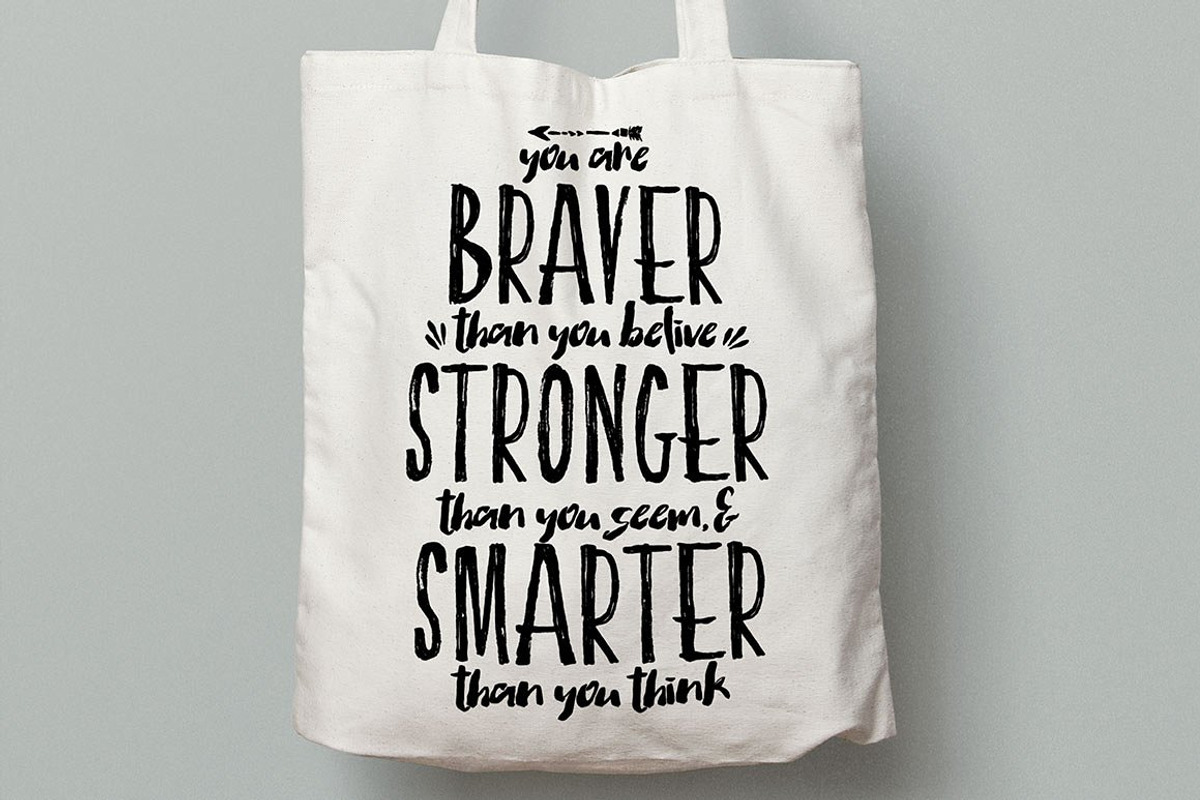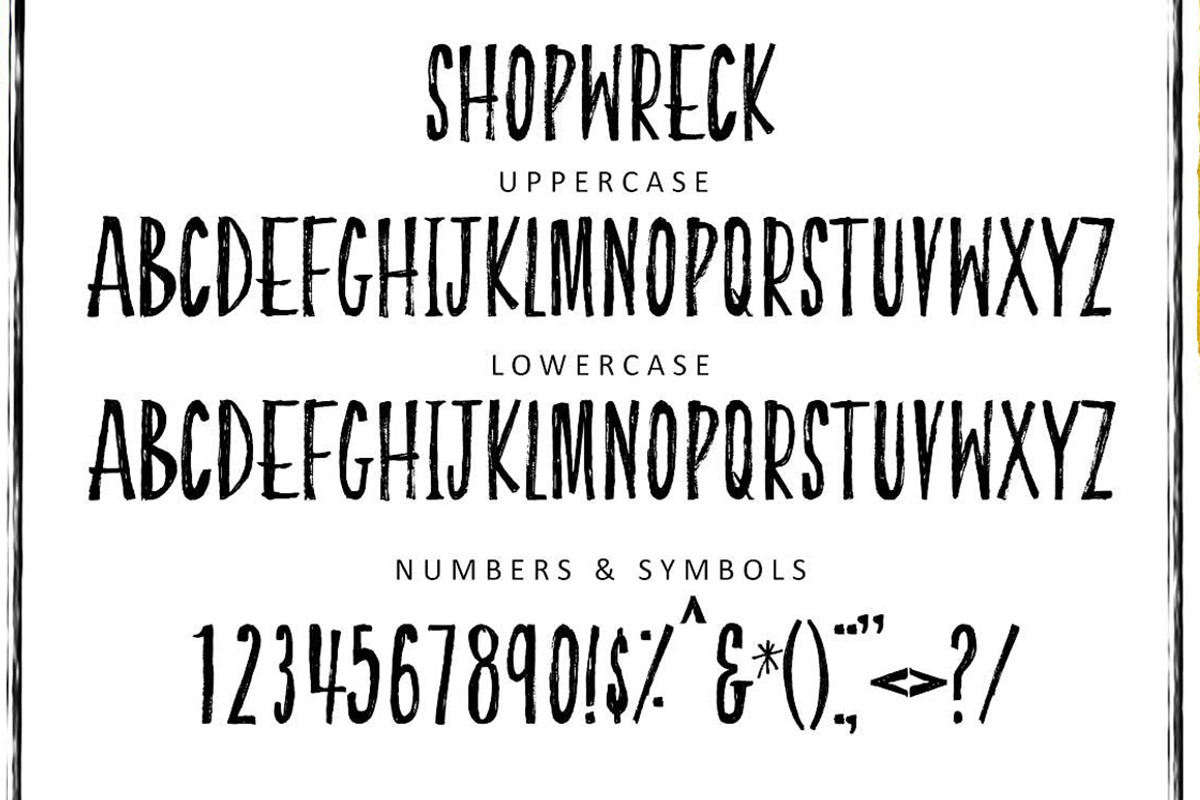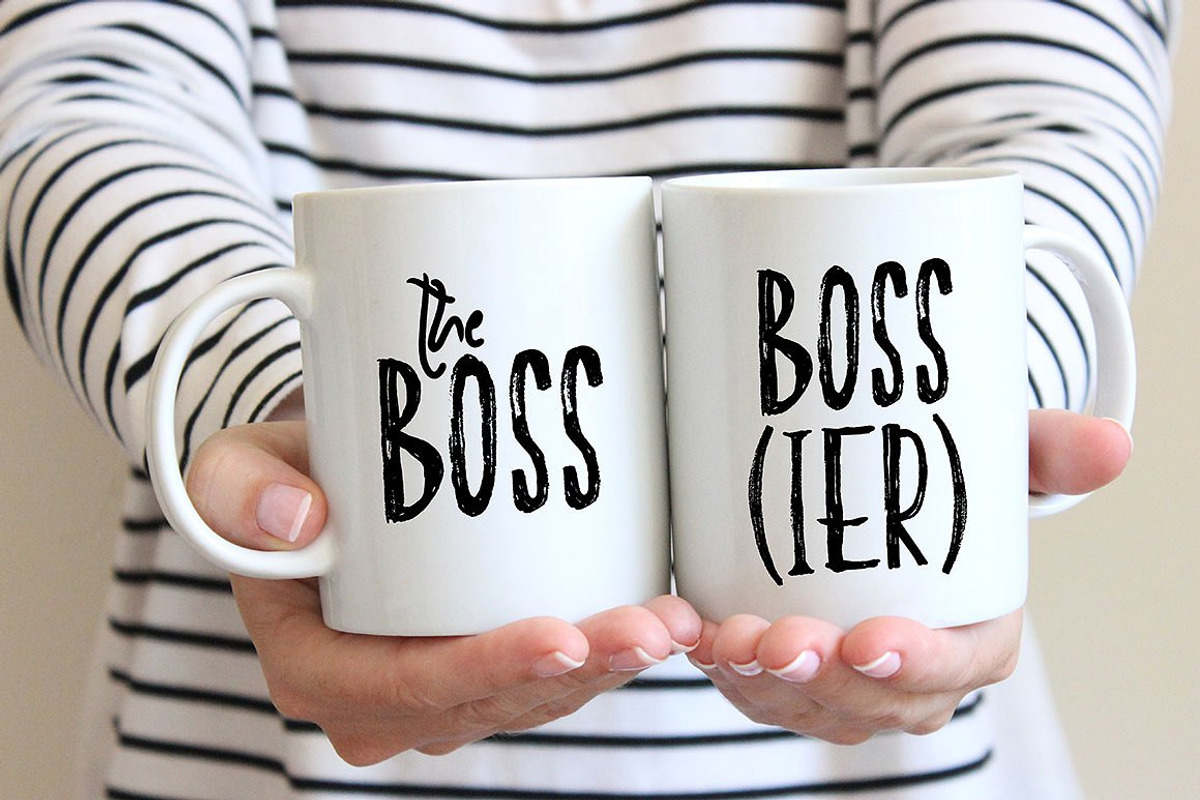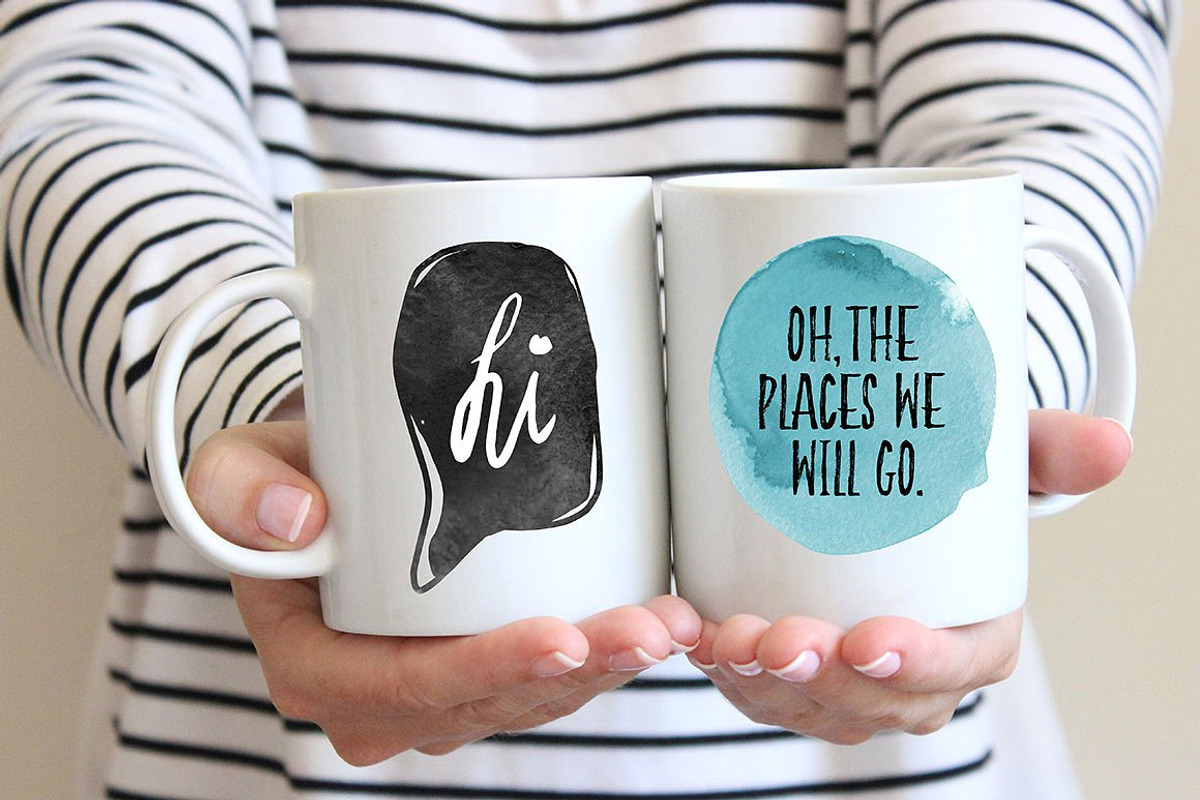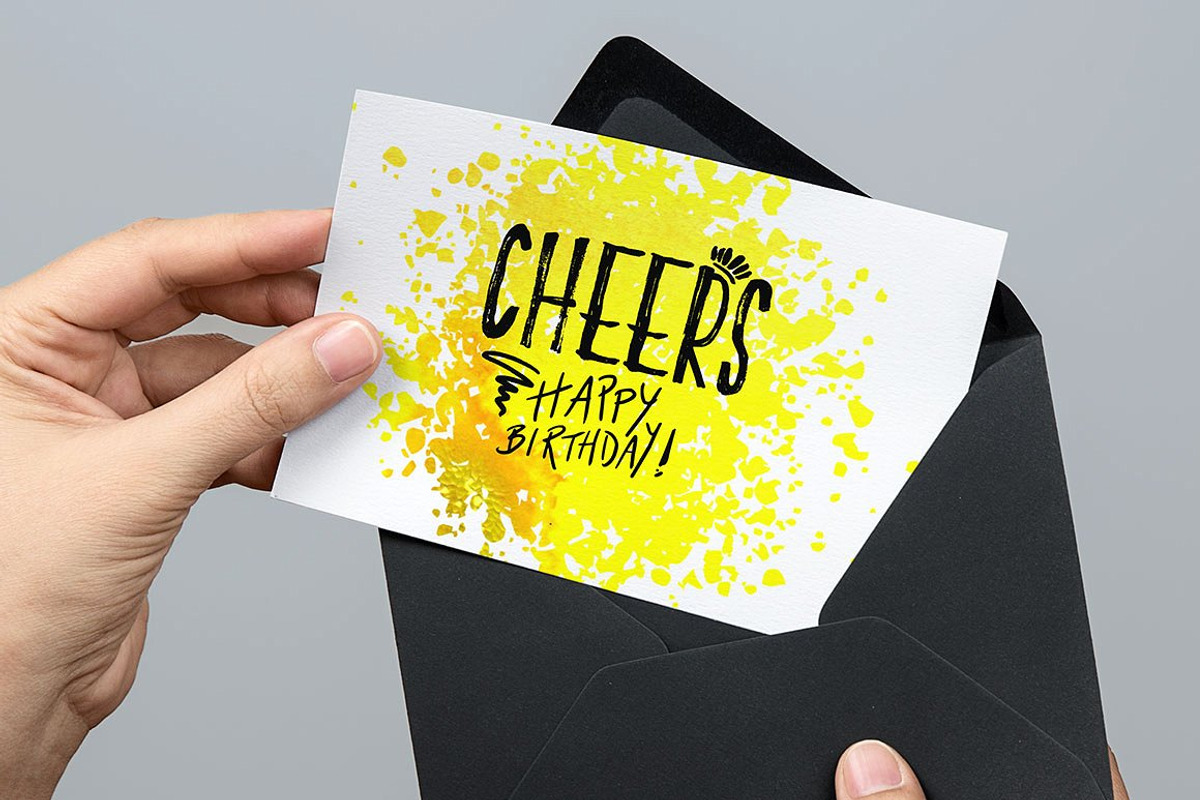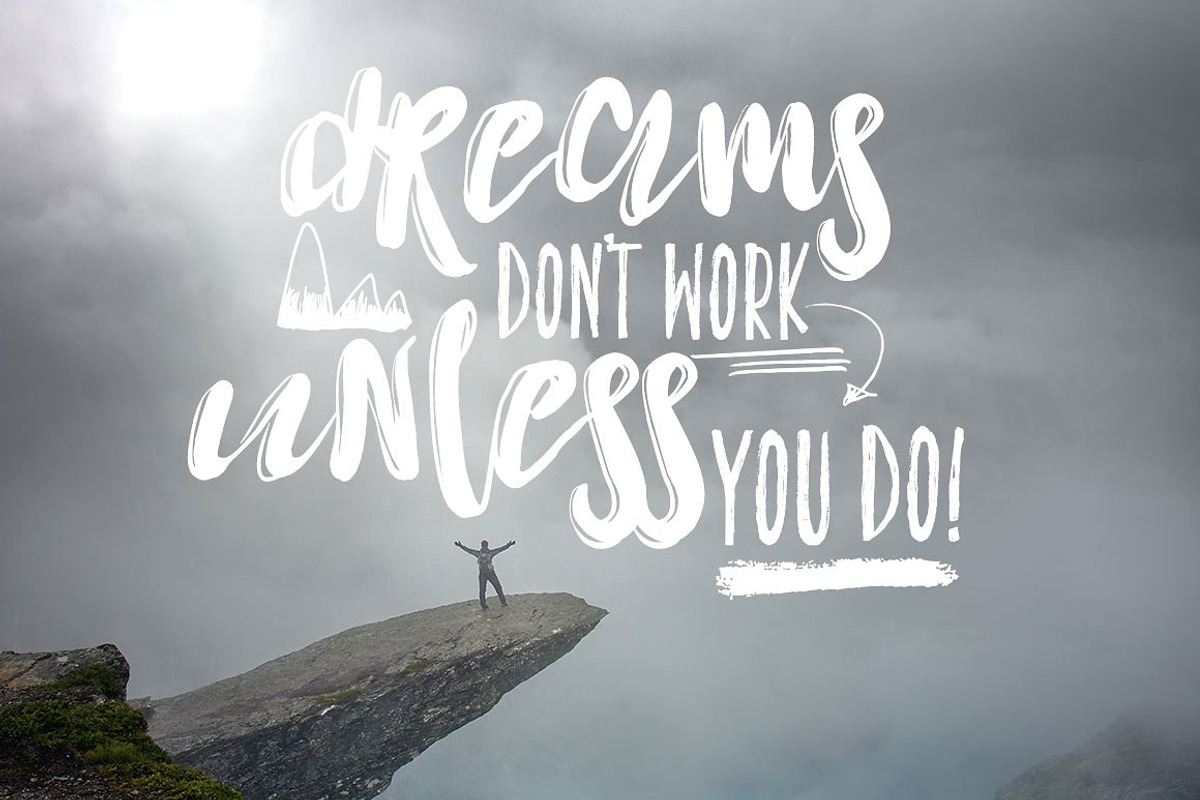
Shopwreck Marker Font
This is Shopwreck. A cool hand drawn marker font. This font is part of the Big Bunch of Fonts Volume 2 here
Why Shopwreck Marker Font is worth a look
Shopwreck Marker Font by Creativeqube Design fits naturally into Branding, posters, packaging, typography.